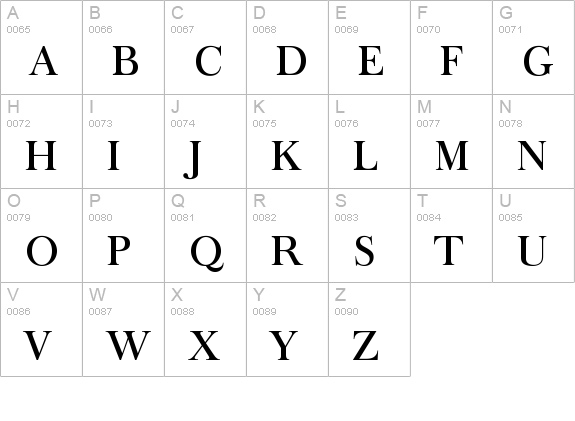
Oldbaskerville-Medium is a balanced, medium-weight variant in the Oldbaskerville typeface family \xE2\x80\x94 well suited to sub-headlines, navigation, and balanced editorial work.
Oldbaskerville-Medium font is a timeless classic that exudes elegance and sophistication. Its clean lines and stylish serifs make it perfect for a wide range of design projects, from branding to editorial design. The medium weight strikes the perfect balance between being bold and refined, making it versatile and easy to read in various sizes. What's even better is that Oldbaskerville-Medium font is available for free download at FontsMarket.com. Whether you're a professional designer looking to add a touch of sophistication to your work or a hobbyist exploring typography, this font is a must-have in your collection. Download Oldbaskerville-Medium font today and elevate your designs with its timeless charm and versatility.